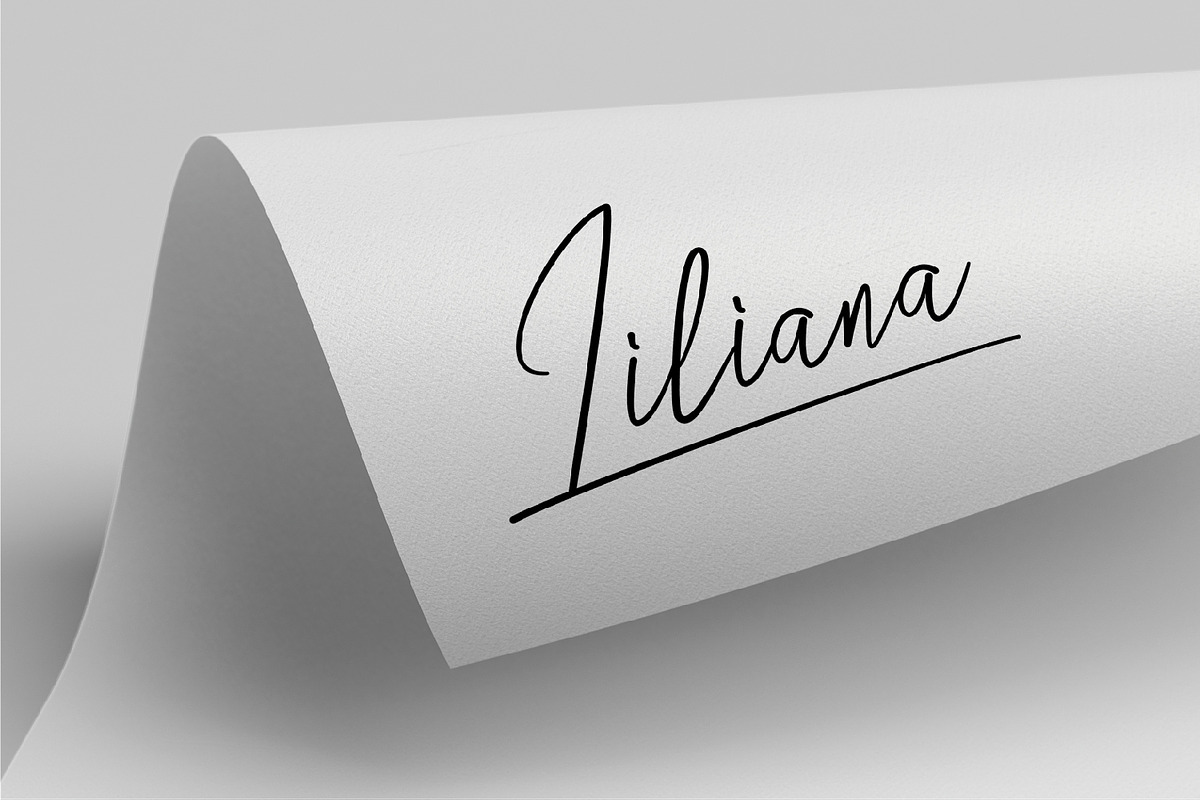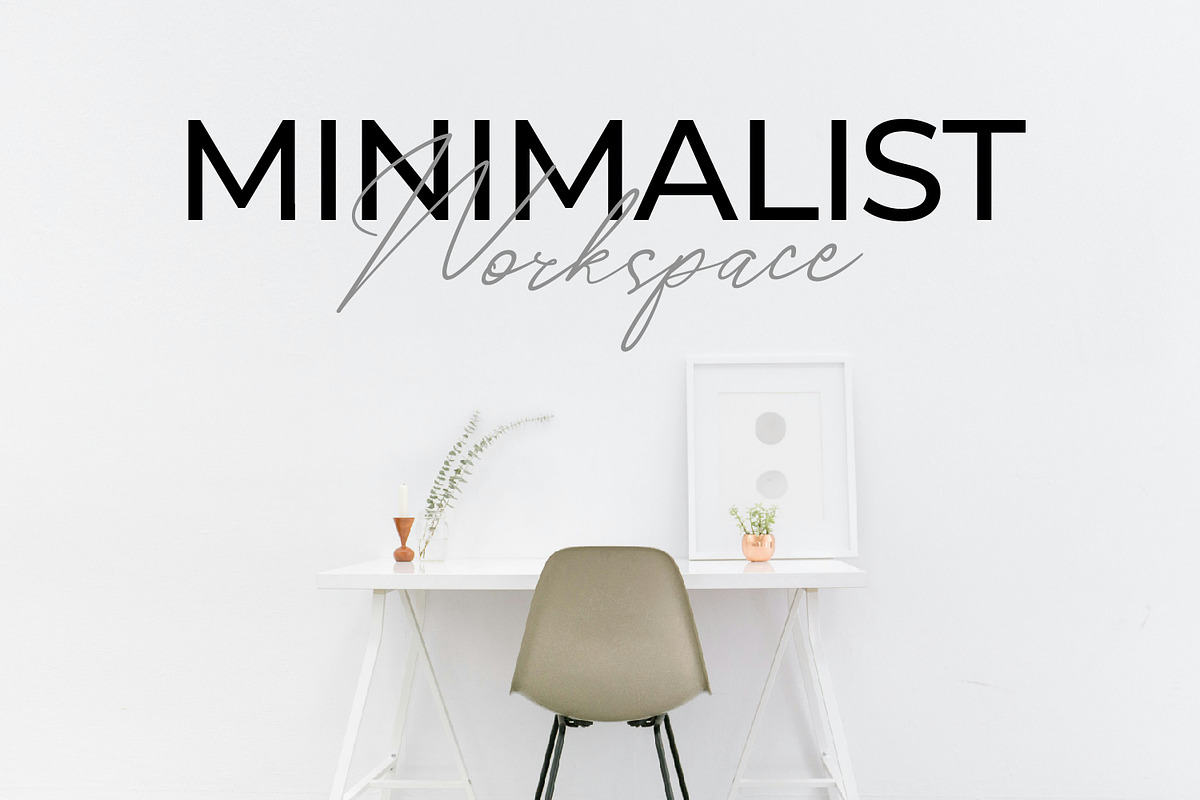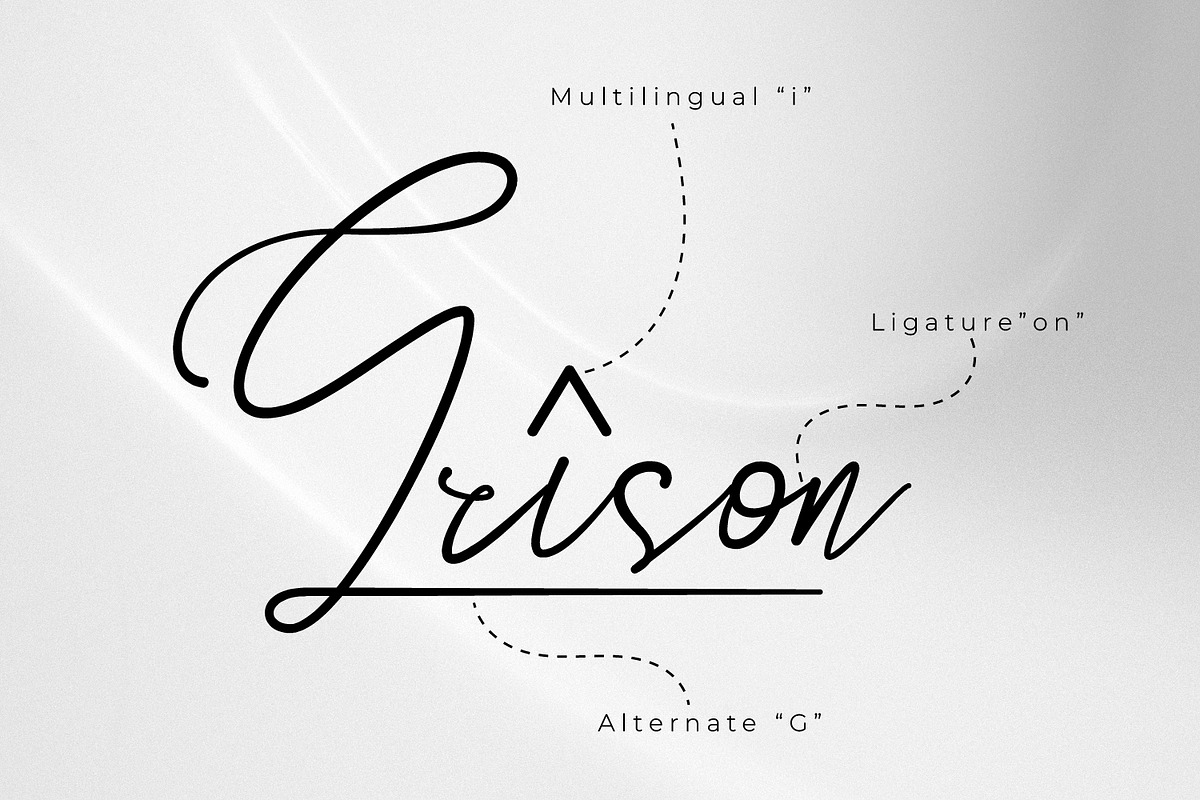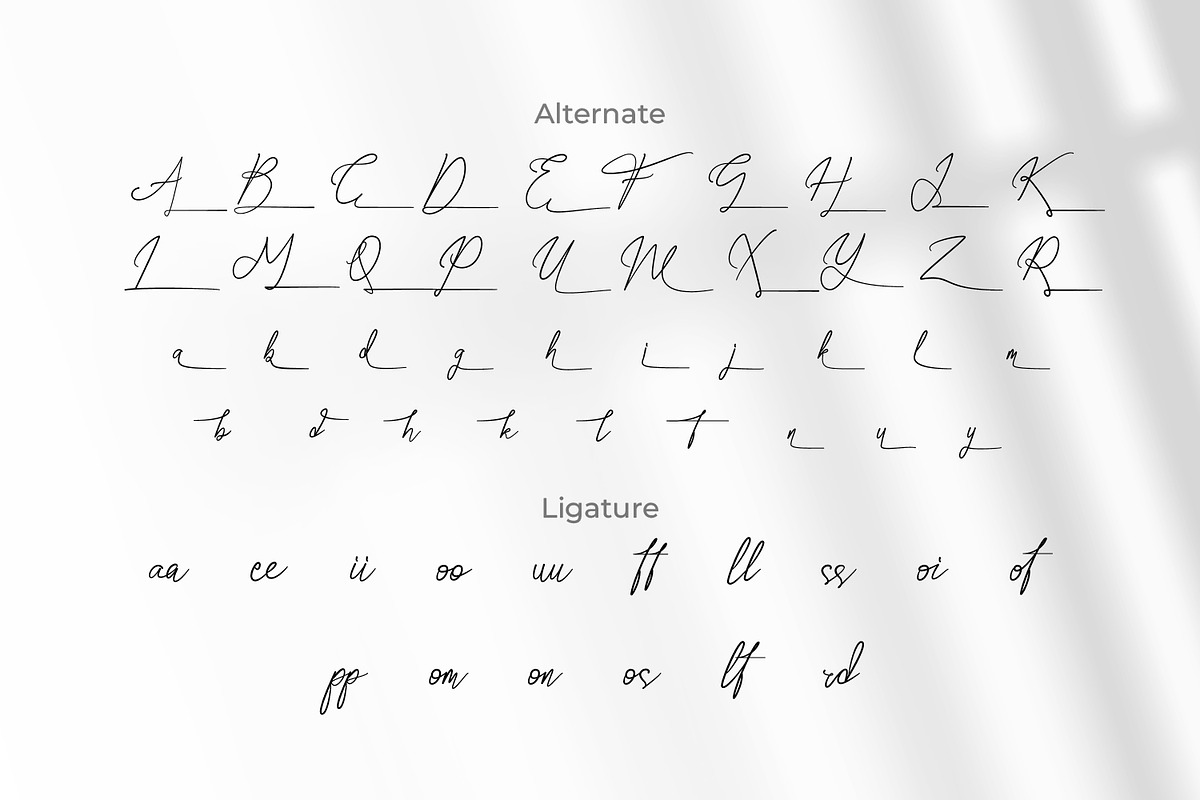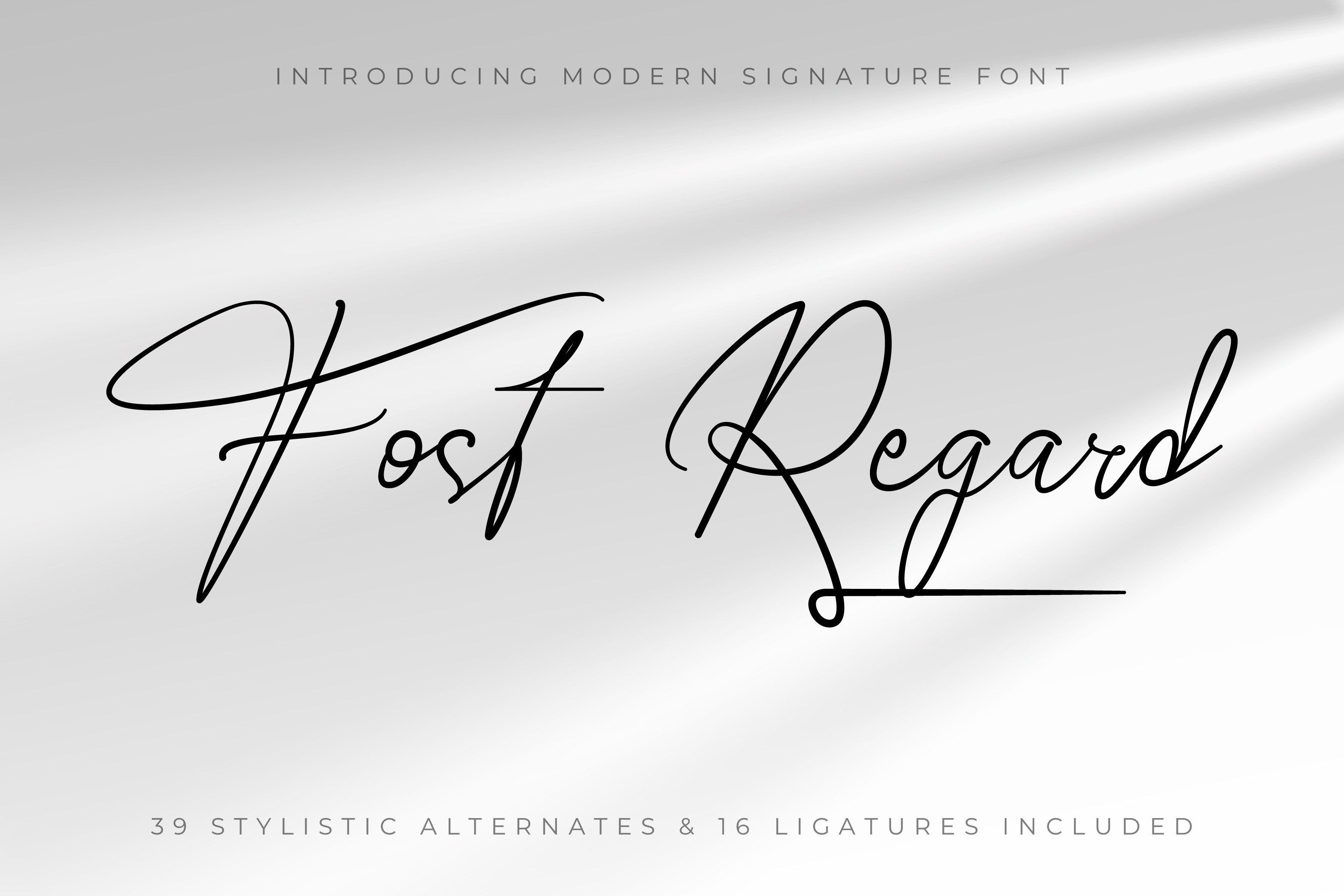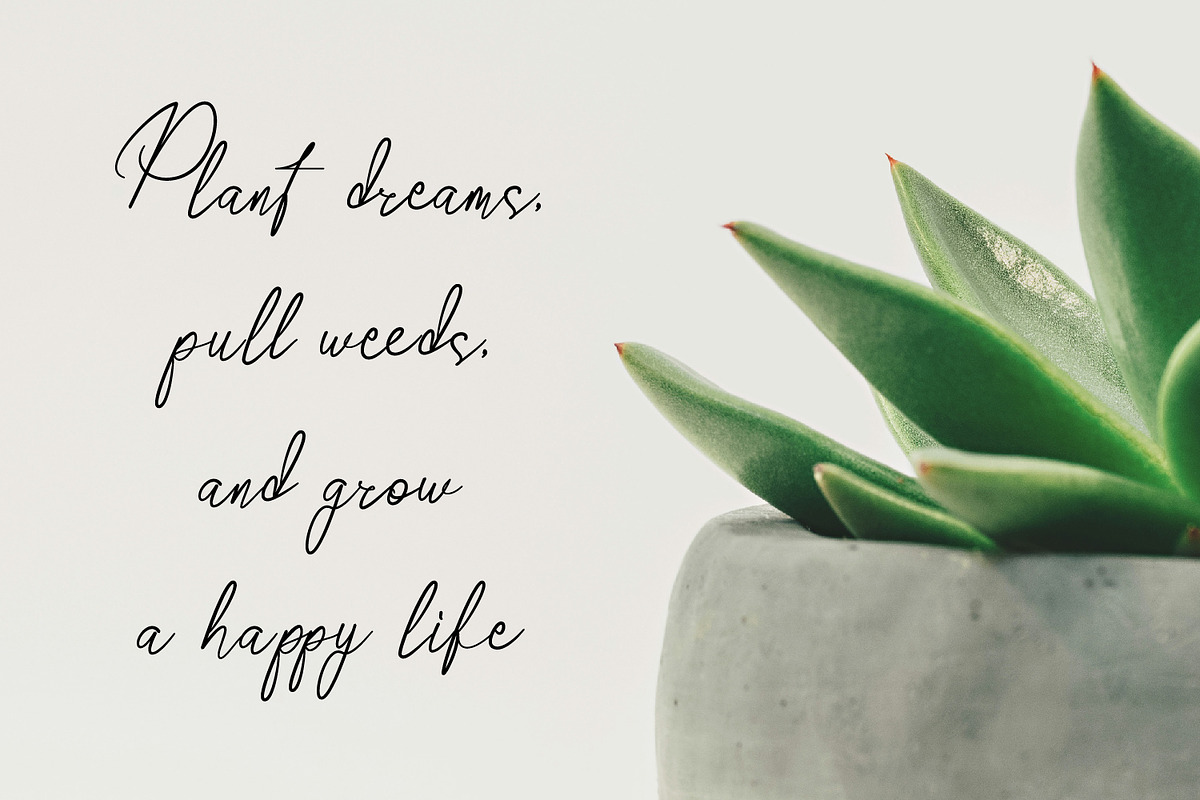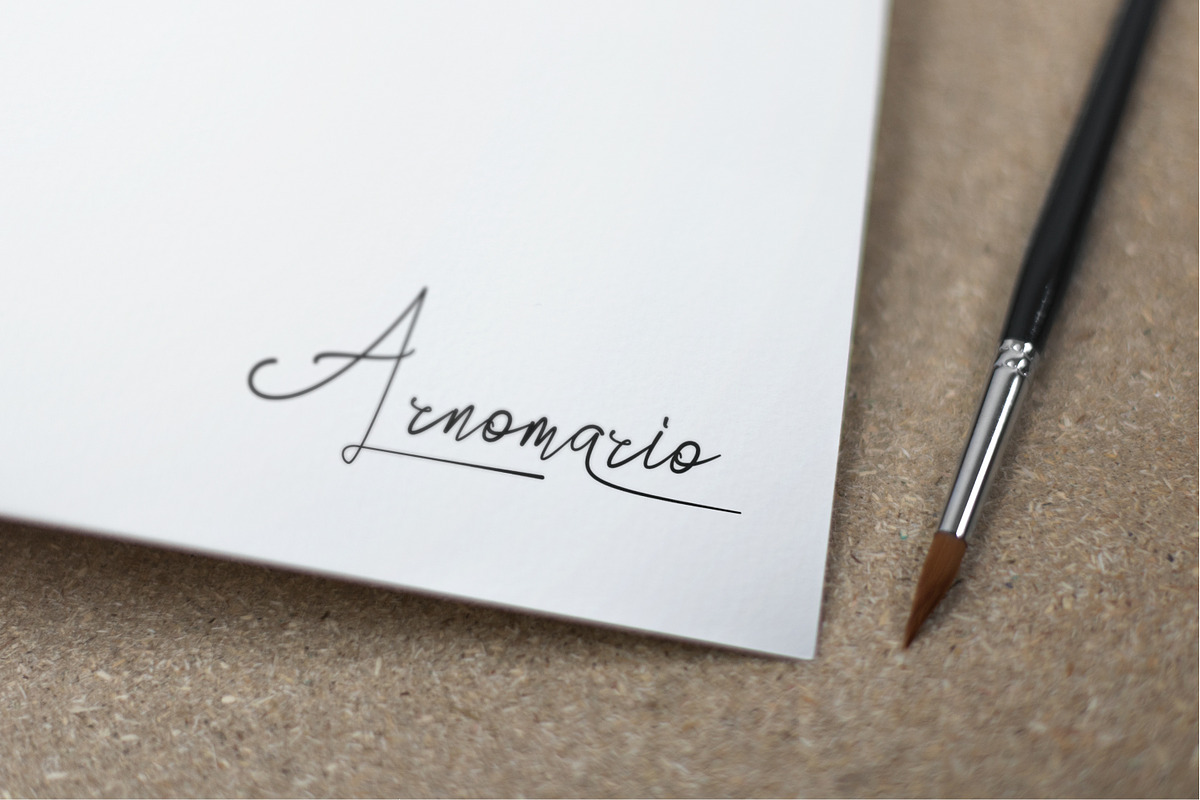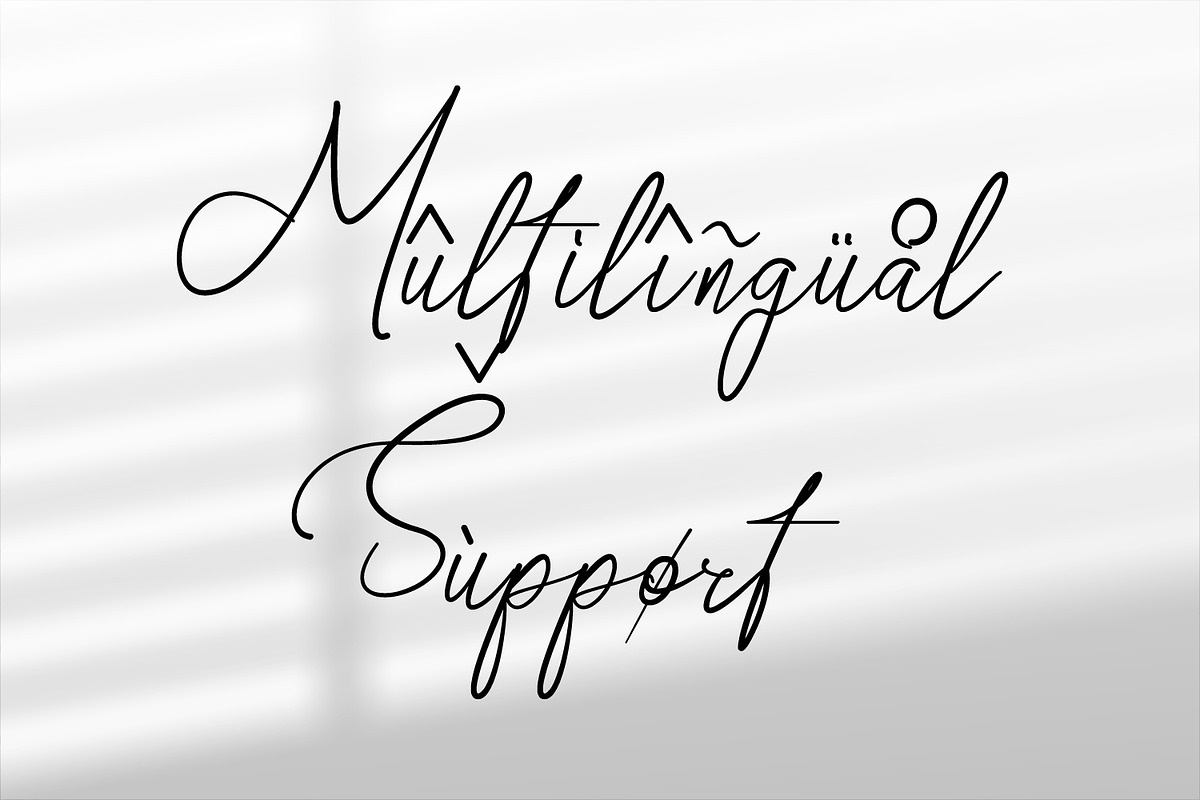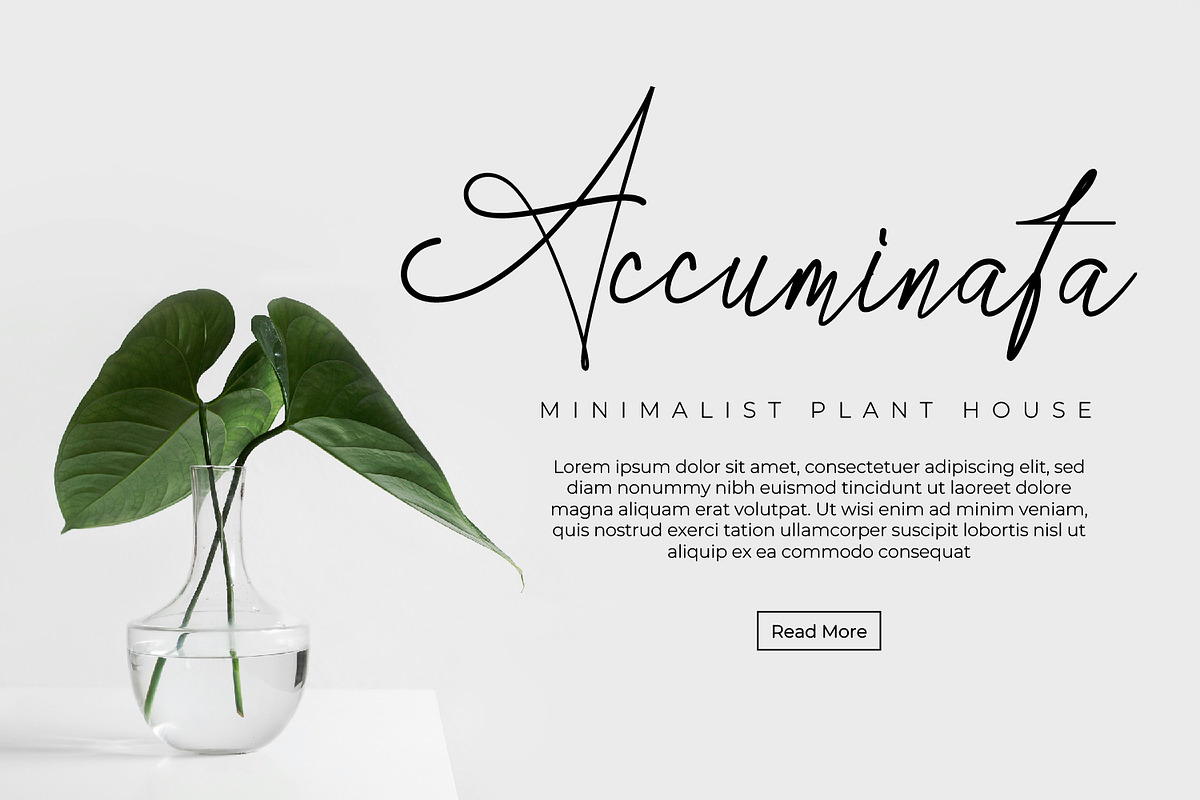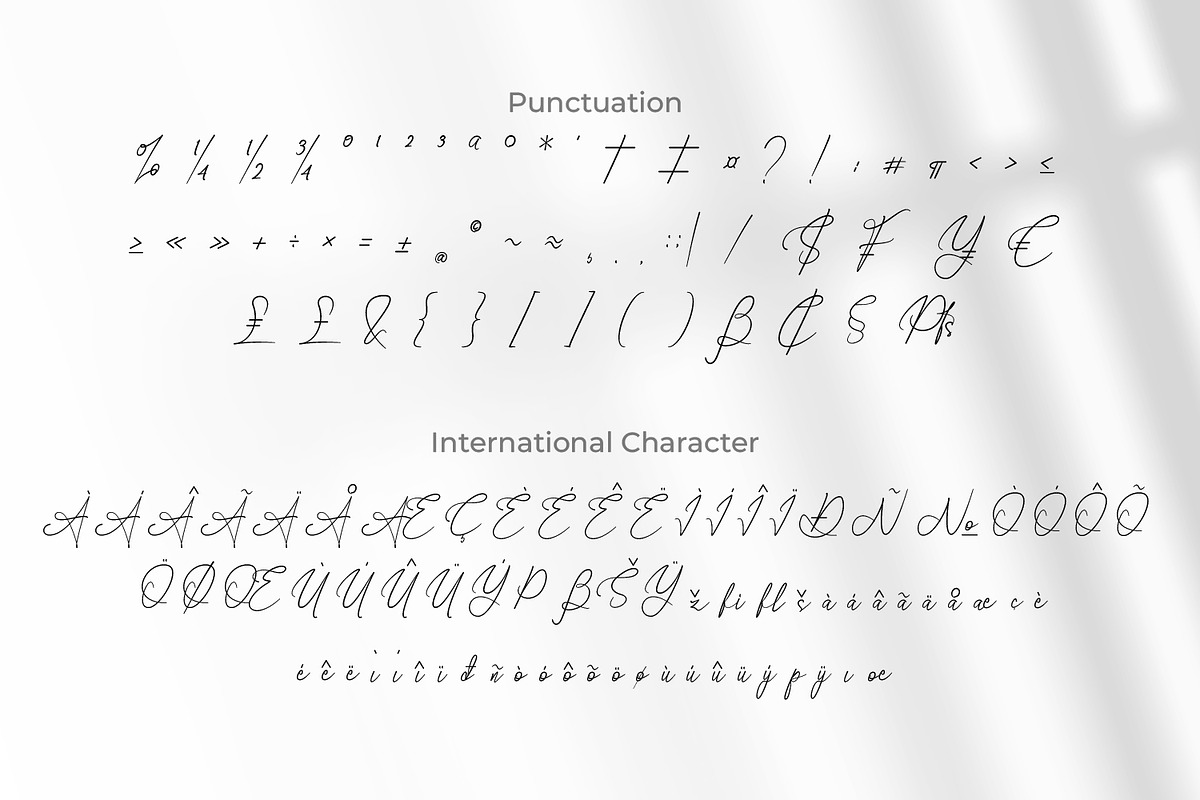
Fost Regard - Signature Script Font
Fost Regard - Modern Signature Script Font, from Rishsketch Studios, is a premium Script Font, perfect for any project that requires a distinctive, and premium feel.
- Ligature, Alternate & amp; Multilingu